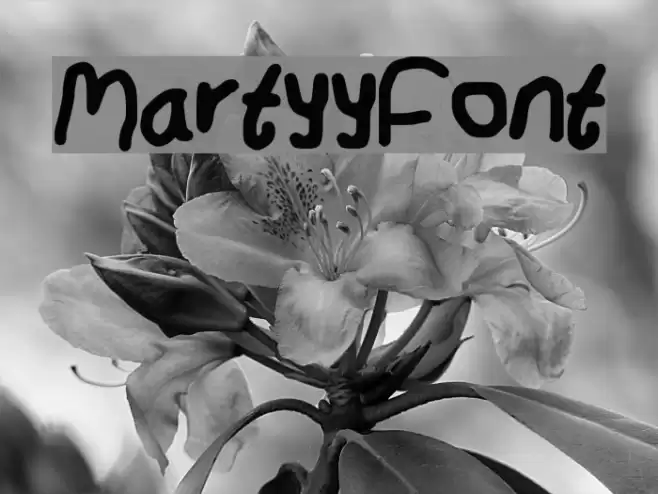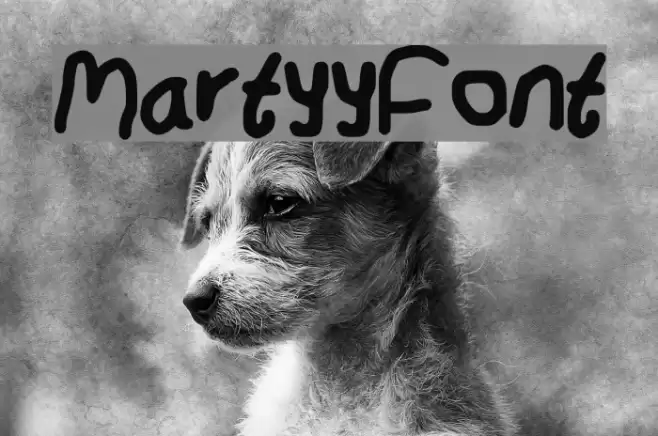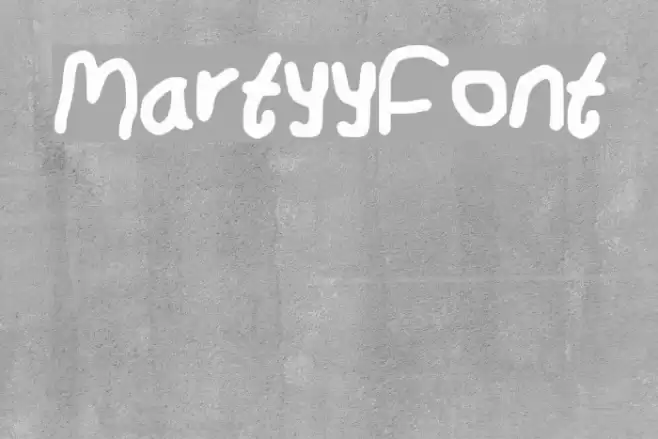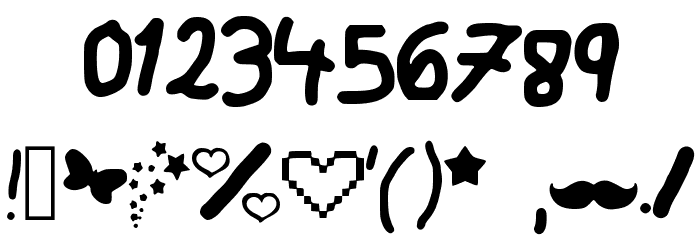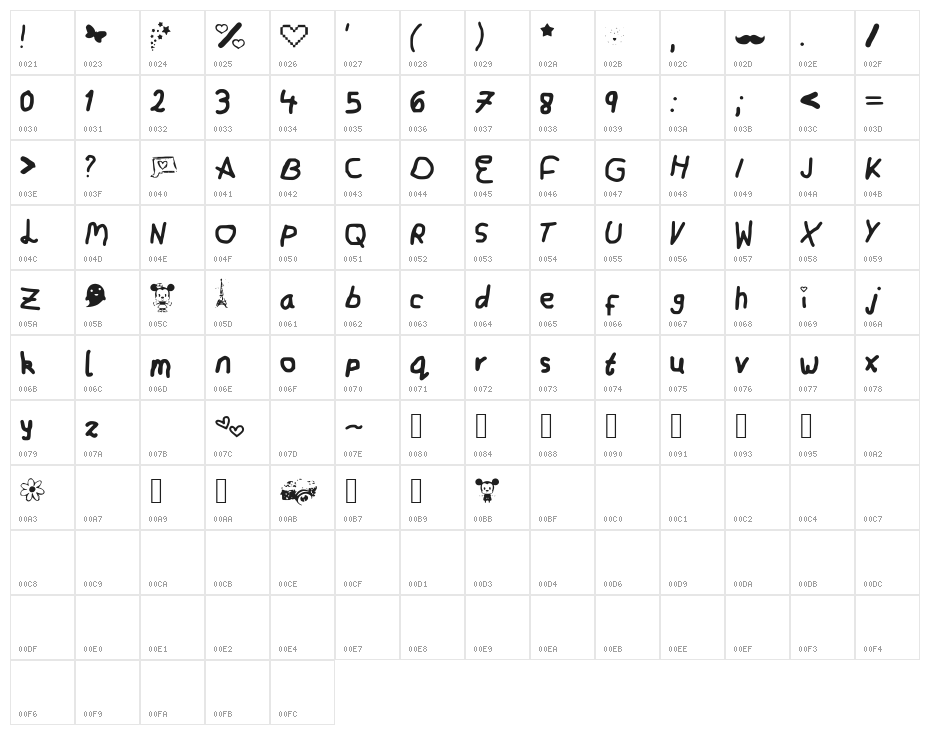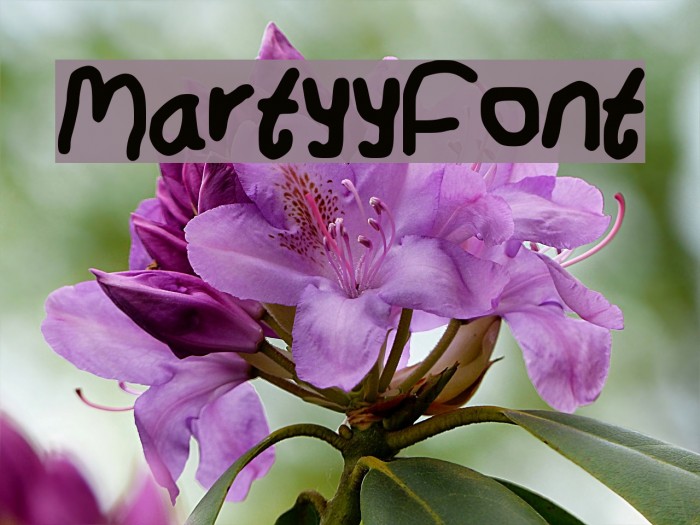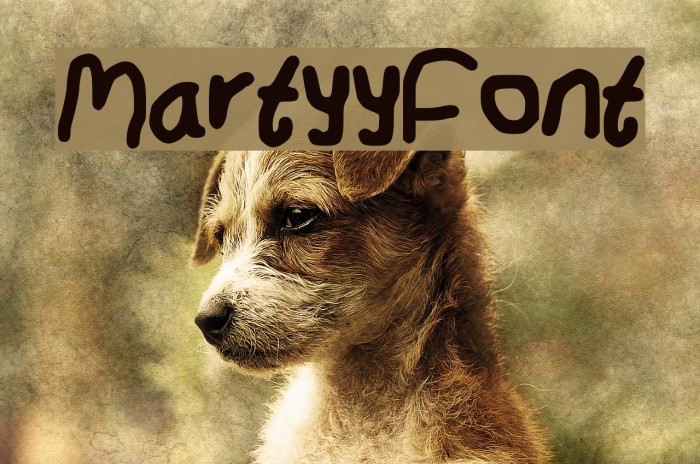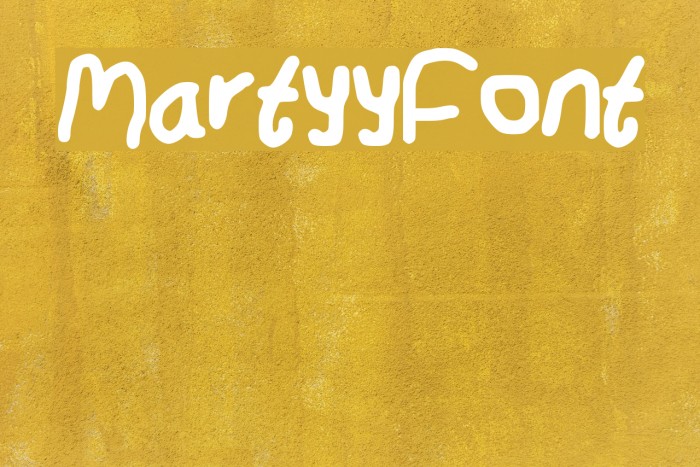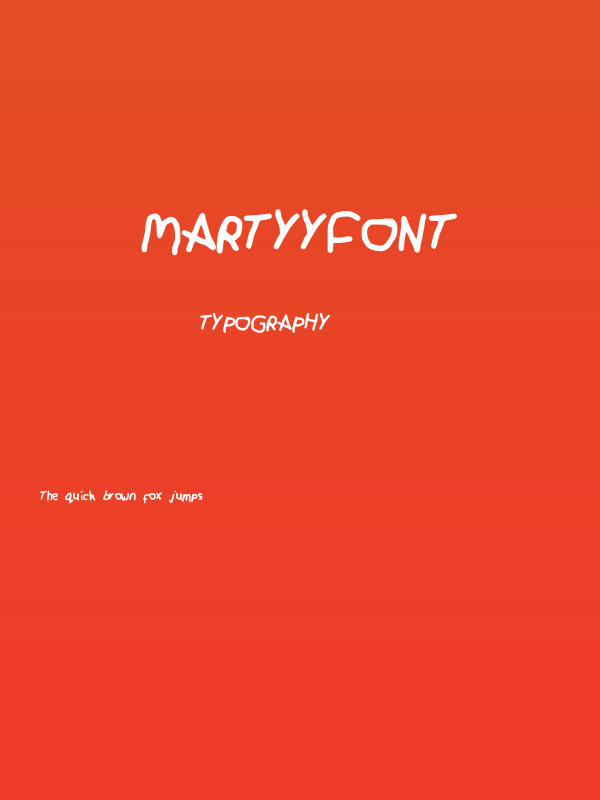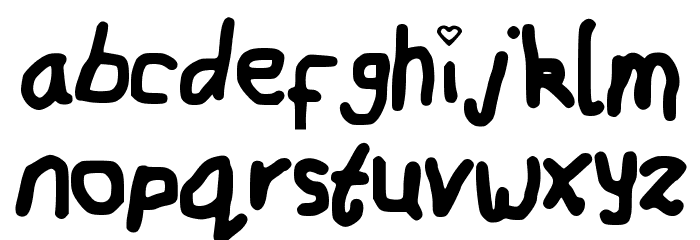
MartyyFont Font
MartyyFont Description
This playful and whimsical font features a hand-drawn style with irregular strokes and a casual appearance. The characters are bold and rounded, giving a friendly and approachable feel. The uppercase and lowercase letters maintain a consistent style, with some letters featuring unique embellishments, such as hearts. The numbers are similarly styled, maintaining the playful aesthetic. Special characters include a variety of symbols, each with a distinctive, quirky design that complements the overall theme. This font is ideal for projects that require a fun and informal touch.
A playful, hand-drawn font with bold, rounded characters and whimsical embellishments from Handwritten fonts.
- Overall Style: Playful